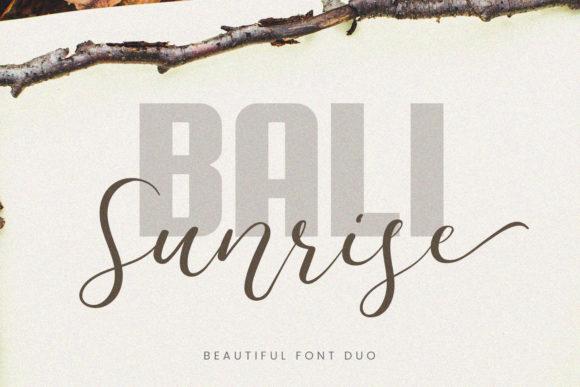
Bali Sunrise Font Duo
Bali Sunrise Calligraphy Font
Bali Sunrise is a spectacular and bold duo font (display and script). Incredibly versatile, this font fits a wide pool of designs, elevating them to the highest levels. Add this font to your favorite creative ideas and notice how it makes them come alive!